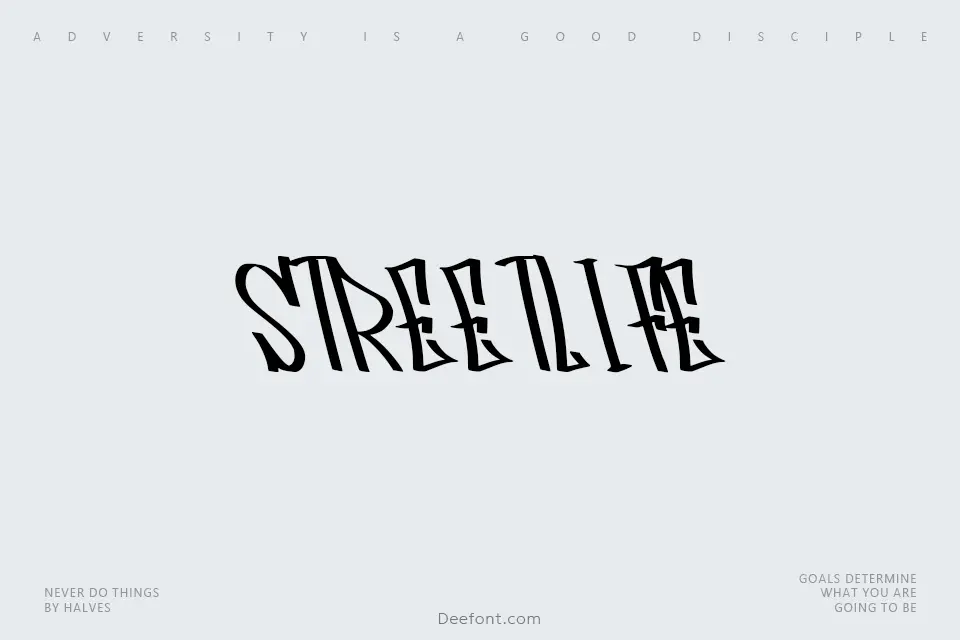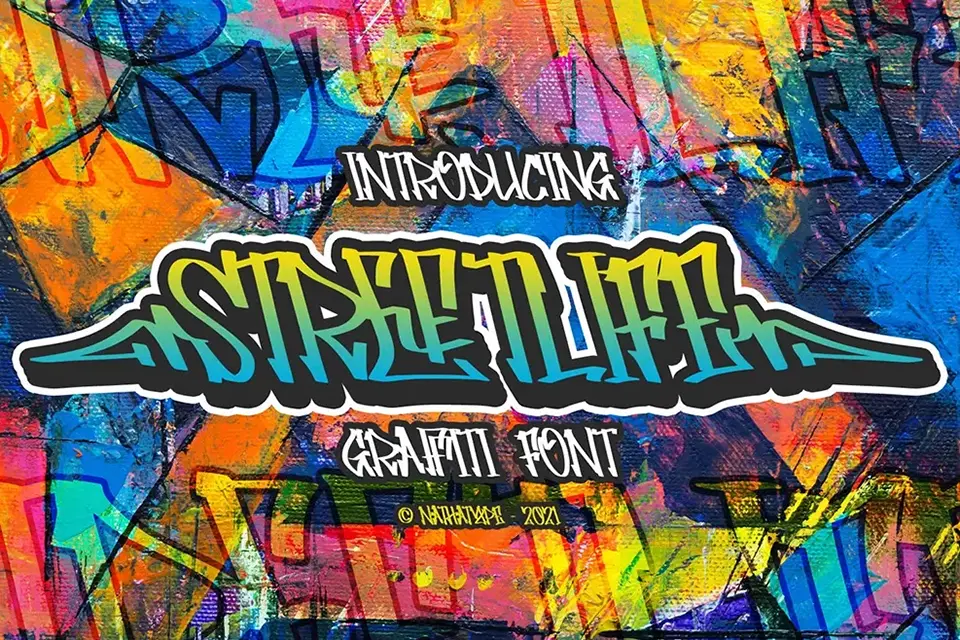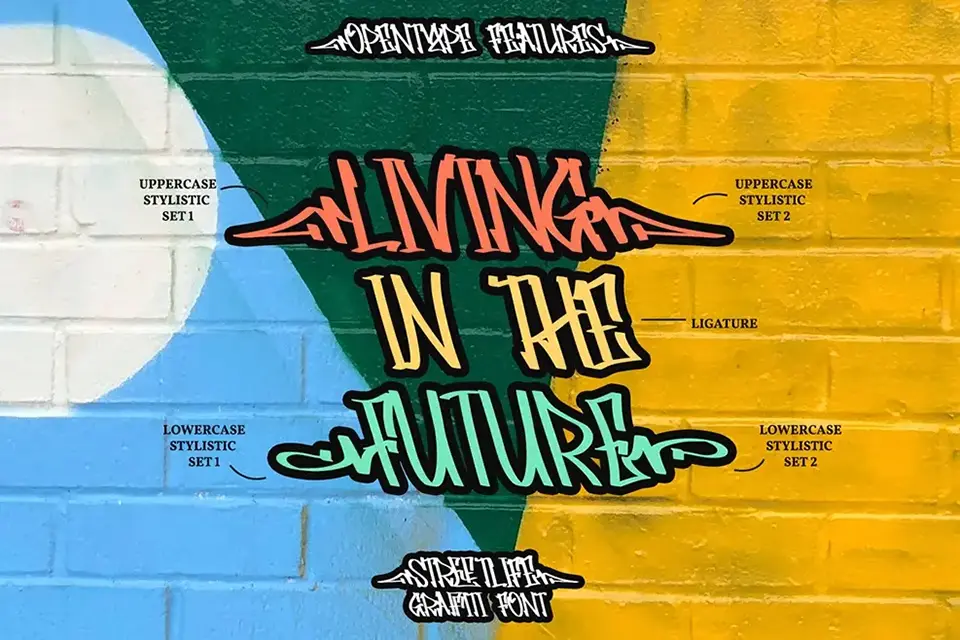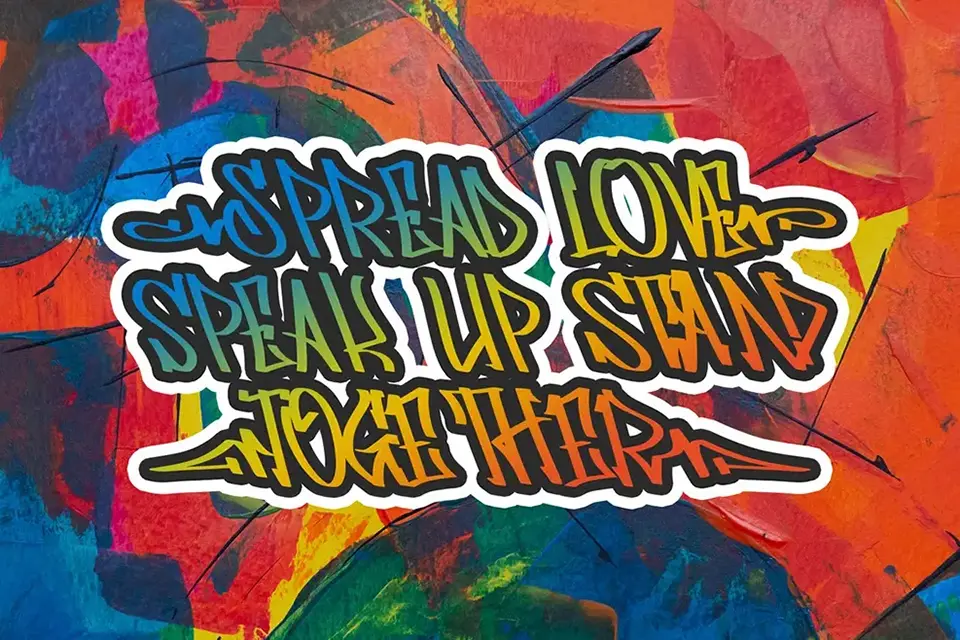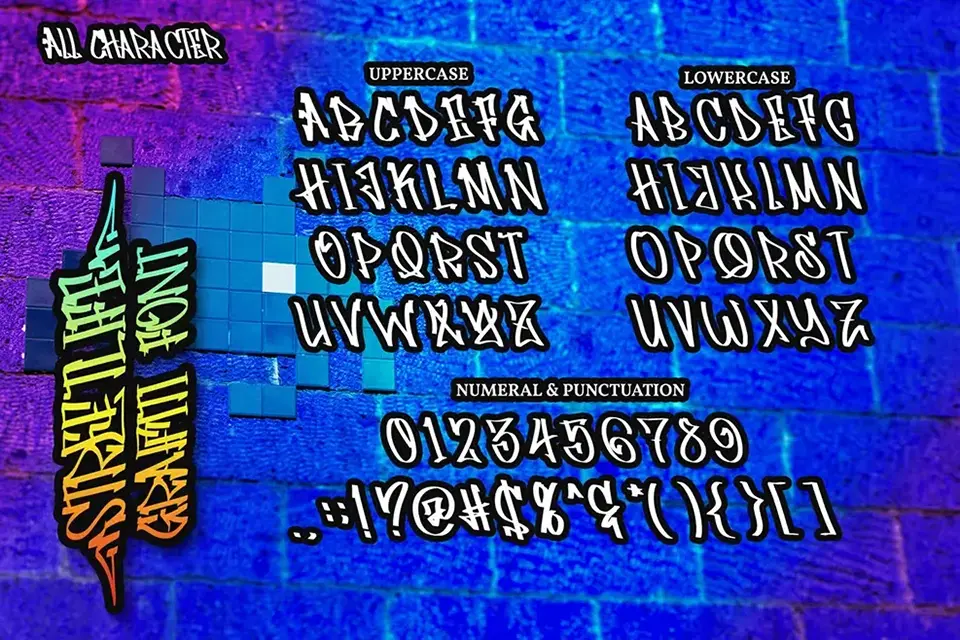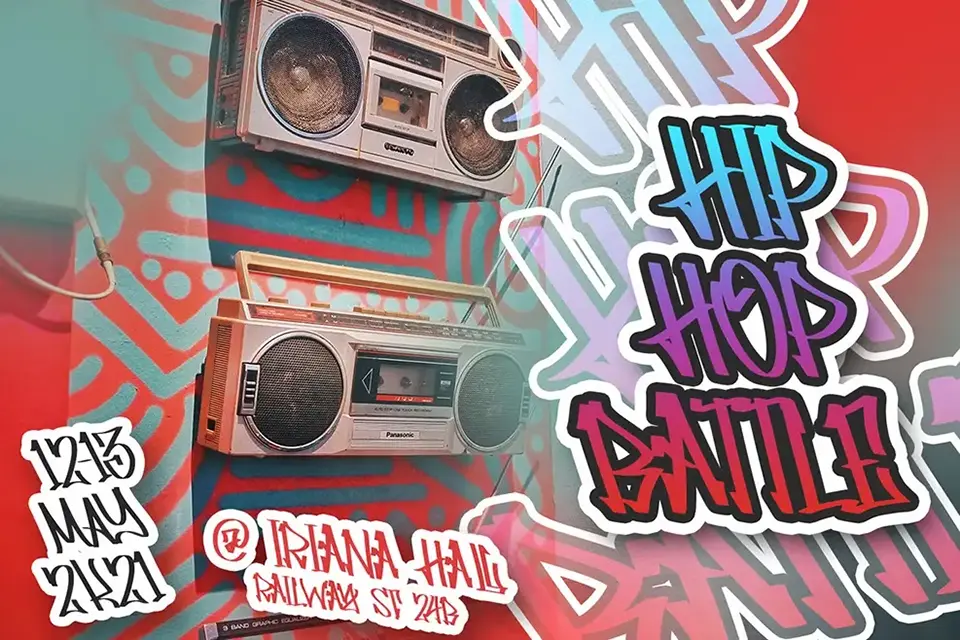
Streetlife Font
Streetlife is a dynamic graffiti font that captures motion and energy through rhythmic, flowing letterforms. This vibrant typeface is perfect for creating eye-catching logos, printed quotes, cards, packaging, website branding, and social media graphics. Featuring ligatures, stylistic sets, and multilingual support, Streetlife brings an urban, street art aesthetic to any design project while maintaining excellent readability across various applications.